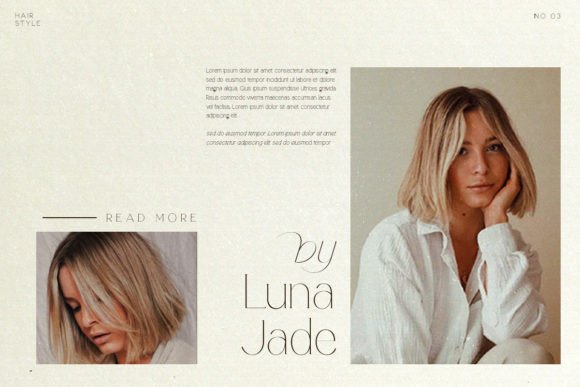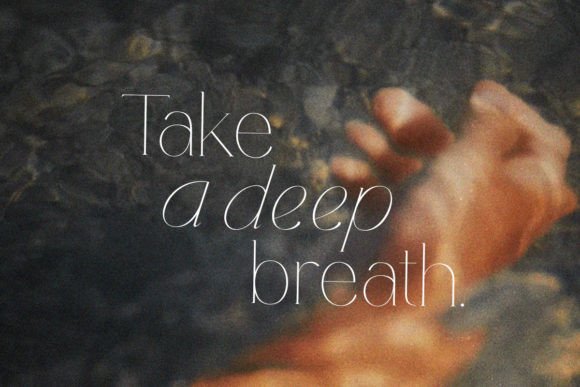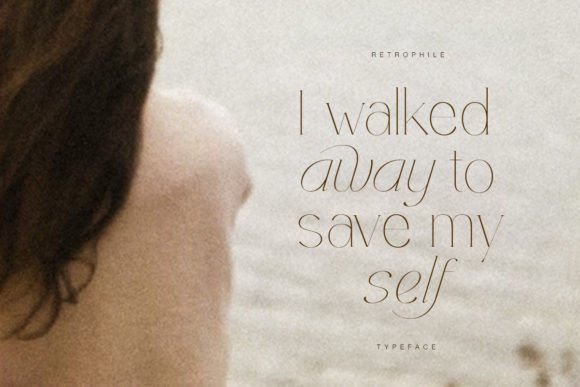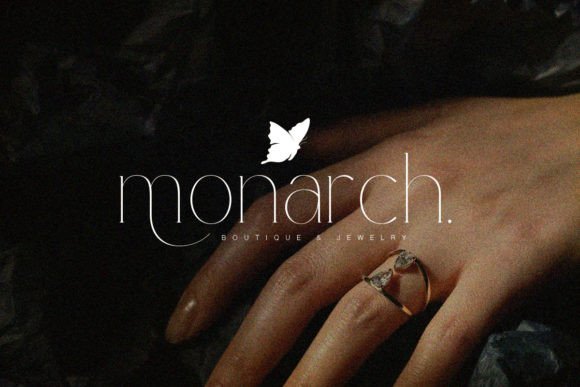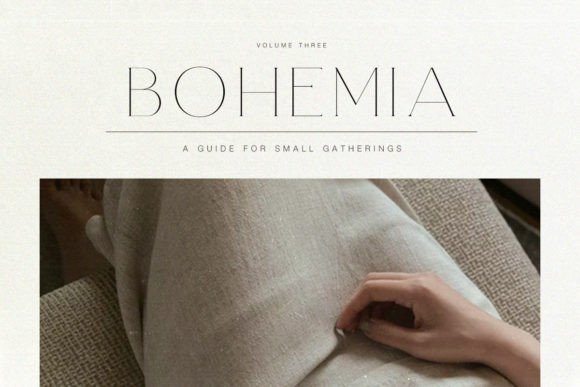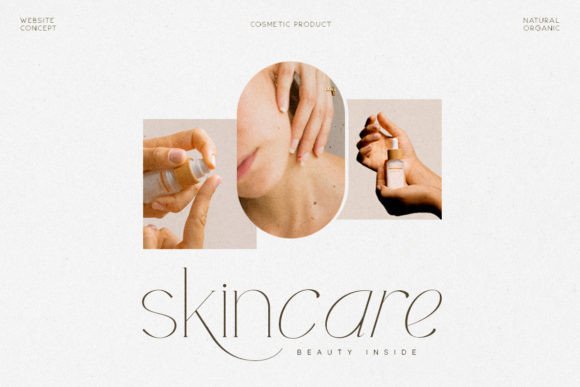
Introduction to Retrophile Font
Remember that moment when you stumbled upon the perfect font for your design project? The one that instantly elevated your creative vision and gave your project that extra oomph? For designers, finding the right font can be a game-changer, and that’s exactly what the Retrophile Font does.
As a free download, this elegant and light serif font is a treasure trove for designers seeking a minimalist and clean look for their creative projects. Whether you’re working on a feminine, chic design or a high-quality branding material, Retrophile Font is an excellent design resource to have in your arsenal. Its PUA encoded feature allows for seamless access to all glyphs and ligatures, making it a valuable addition to any designer’s toolkit.
What sets Retrophile Font apart is its versatility and timeless appeal, making it perfect for designers who want to create visually stunning and professional-looking designs with a transparent background.
Key Features of Retrophile Font
- Retro aesthetic with a unique blend of vintage and modern elements, perfect for creative projects.
- Perfect for use in a variety of creative projects, including graphic design, typography, and digital art.
Honest Review: Retrophile Font
As a designer, I’m always on the lookout for high-quality design resources that can elevate my creative projects. The Retrophile Font is one such resource that caught my attention.
Here are some things that work well with this font:
- ✨ Unique retro aesthetic: The Retrophile Font has a distinct, vintage vibe that’s perfect for design projects that require a touch of nostalgia.
- ✨ High quality: The font is crisp and clear, with no signs of pixelation or distortion, even when scaled up or down.
- ⚠️ Limited character set: The Retrophile Font only includes a basic set of characters, which may not be sufficient for complex design projects.
Overall, I’m impressed with the Retrophile Font’s unique aesthetic and high quality. While it may not be suitable for all design projects, it’s an excellent resource for designers looking for a retro vibe.
Retrophile Font
– Use the Retrophile Font to create engaging presentations and documents with a touch of retro flair.
The Retrophile Font is perfect for:
- Presentation designs
- Document layouts